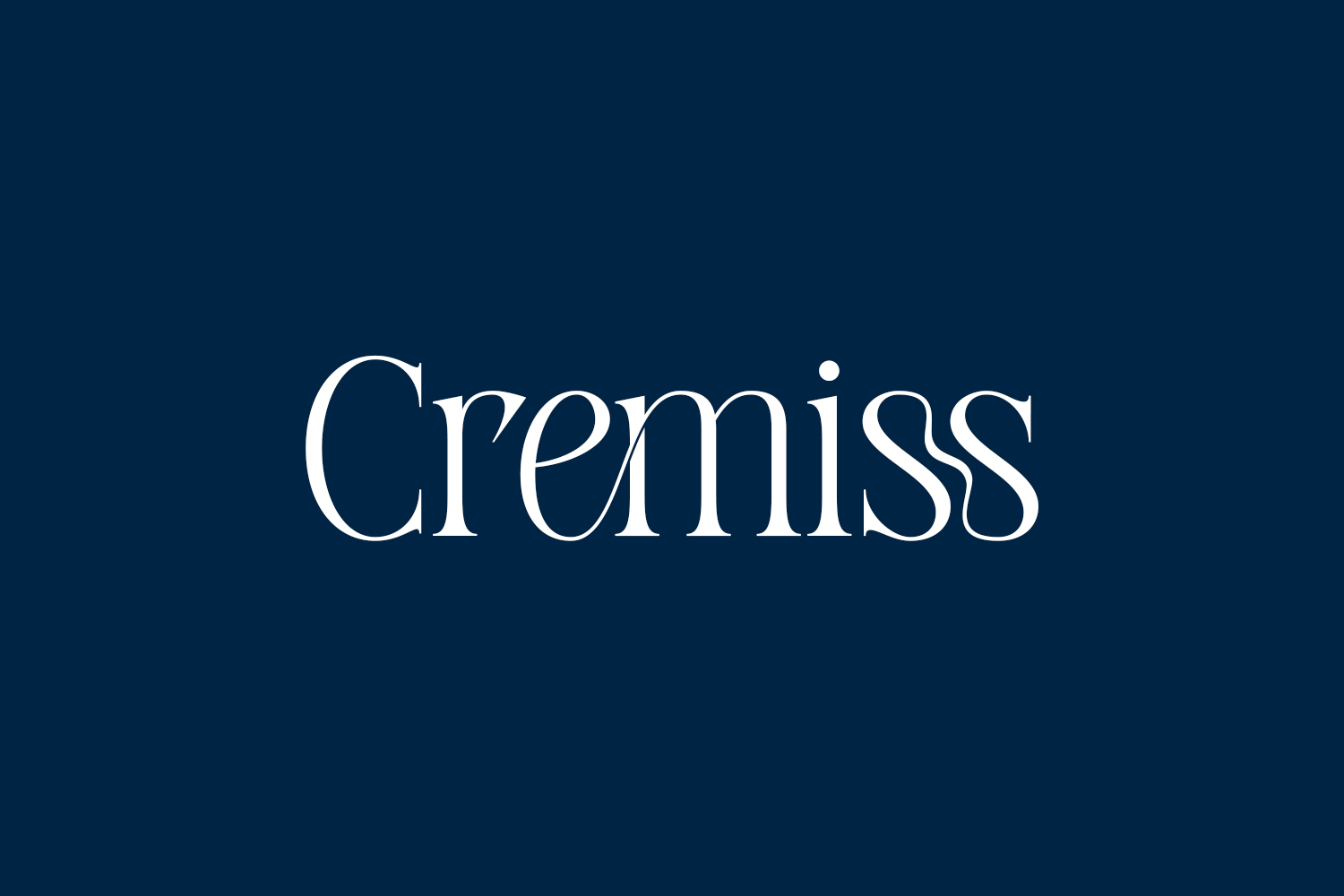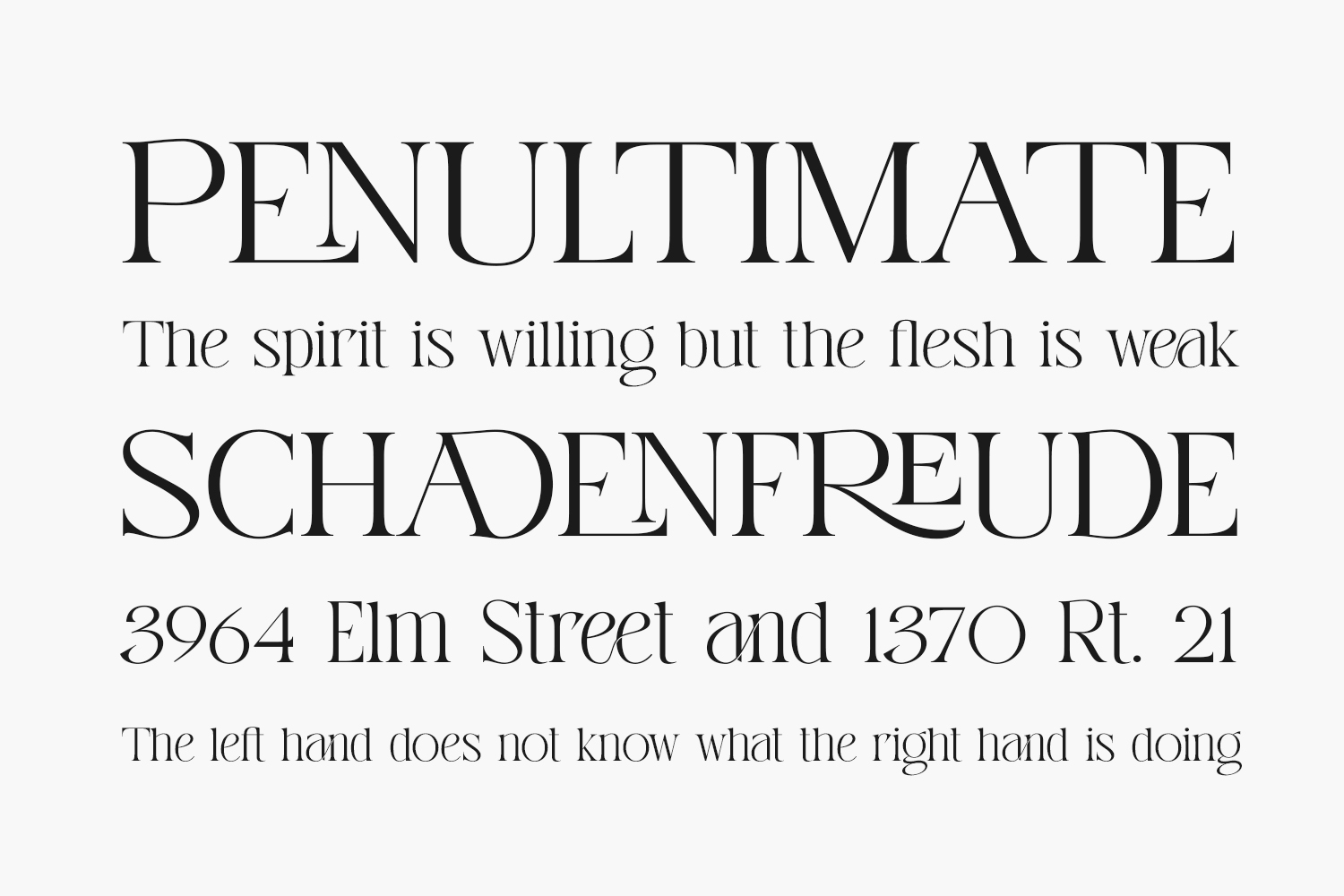
Cremiss Free Font Family is a gorgeous, artistic, and stylish font duo (serif and signature script). Fall for its ravishing style and use it to create gorgeous designs. Cremiss Free Font Family was designed by Letter ToniStudio and is free for personal use only. Please purchase the full version for commercial use.
Cremiss Regular The quick brown fox jumps over the lazy dog
Cremiss Signature The quick brown fox jumps over the lazy dog